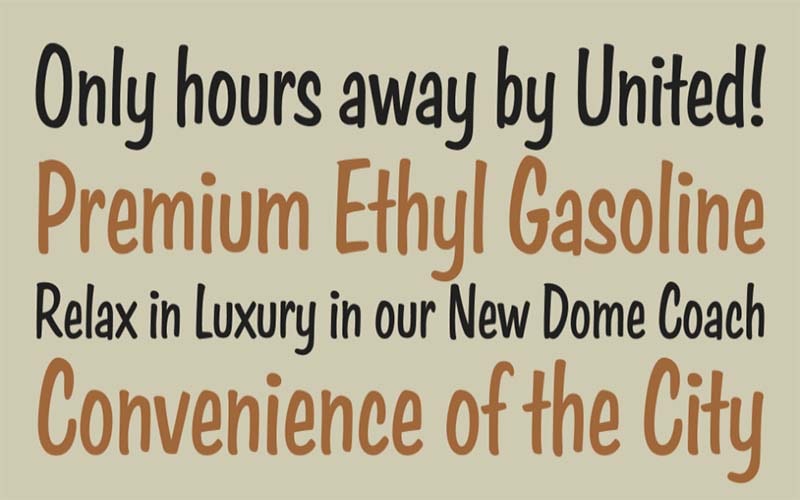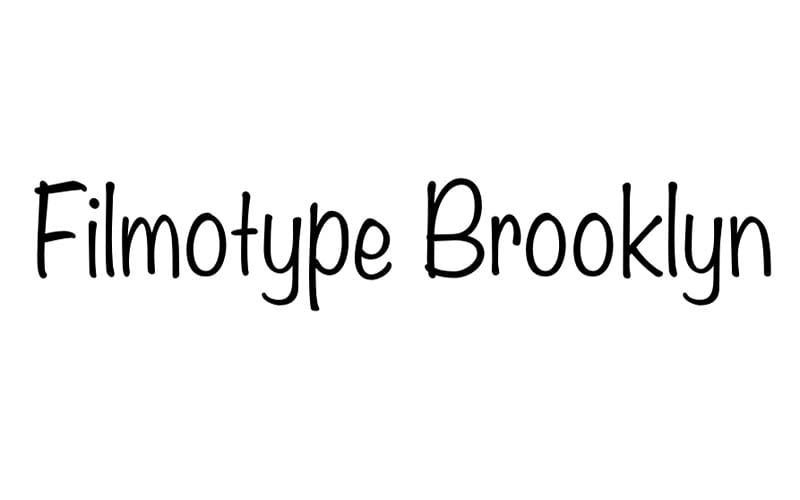
Filmotype Brooklyn Font is an amazing display typeface. This stylish look makes it perfect for a variety of creating beautiful text pieces.
This font was designed by famous designers Rebecca Alaccari, and Patrick Griffin who design this to give a stylish look to your projects.
The subfamily of this typeface is regular and contains a single style such as the “Filmotype Brooklyn Regular” font style. Which makes this prominent around the world.
This incredible typeface contains 432 strong characters and 418 glyphs such as uppercase and lowercase letters, punctuation marks, and numerals. Let us first look at its texture.
Filmotype Brooklyn Font
| Font Name: | Filmotype Brooklyn Font |
| Style: | Display, Handwritten, Typeface |
| Font Designer: | Rebecca Alaccari, Patrick Griffin |